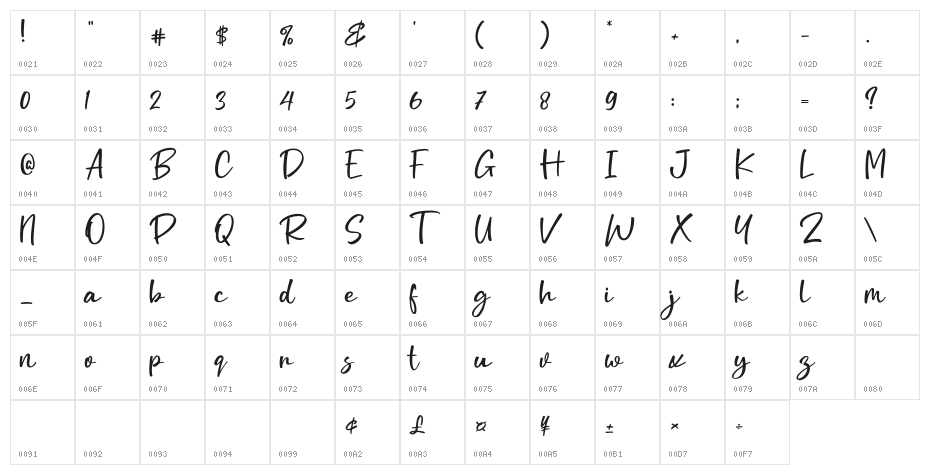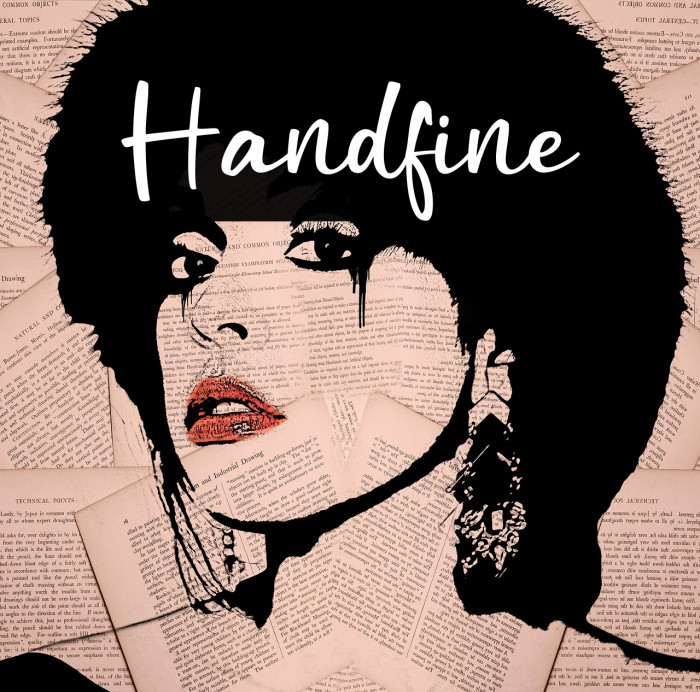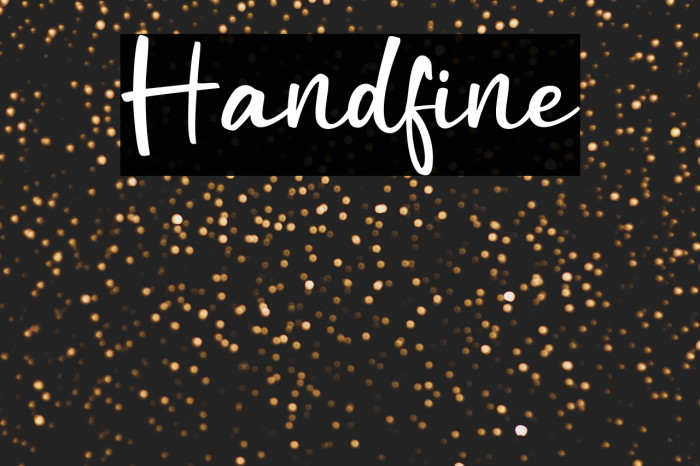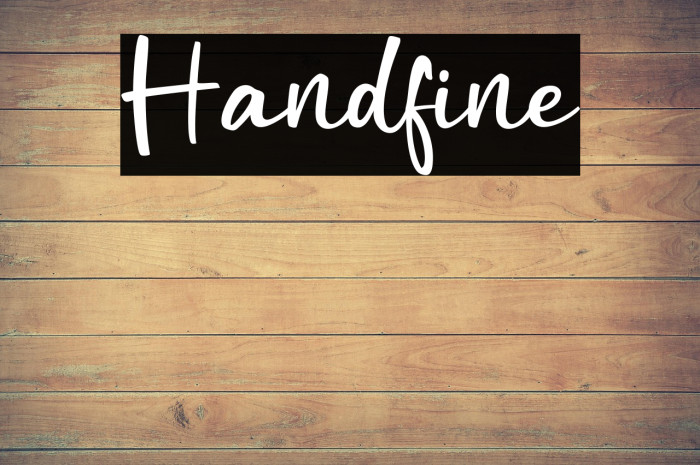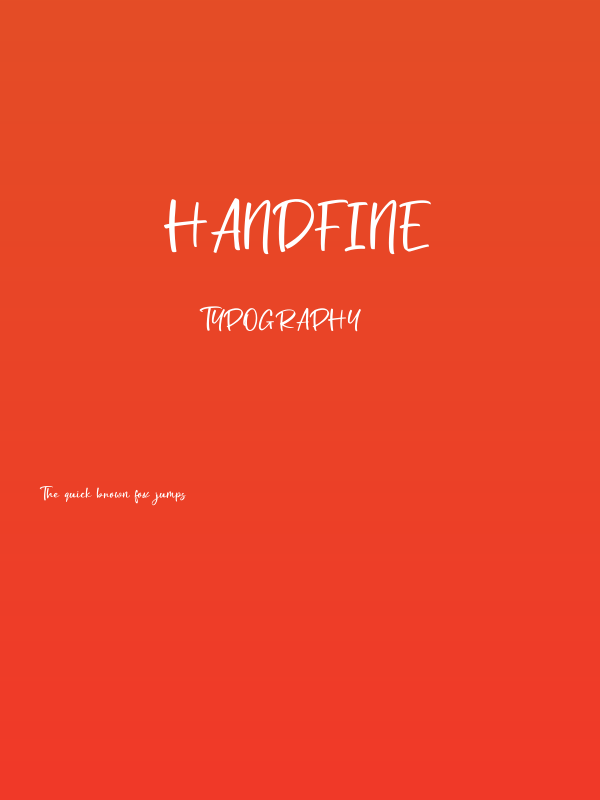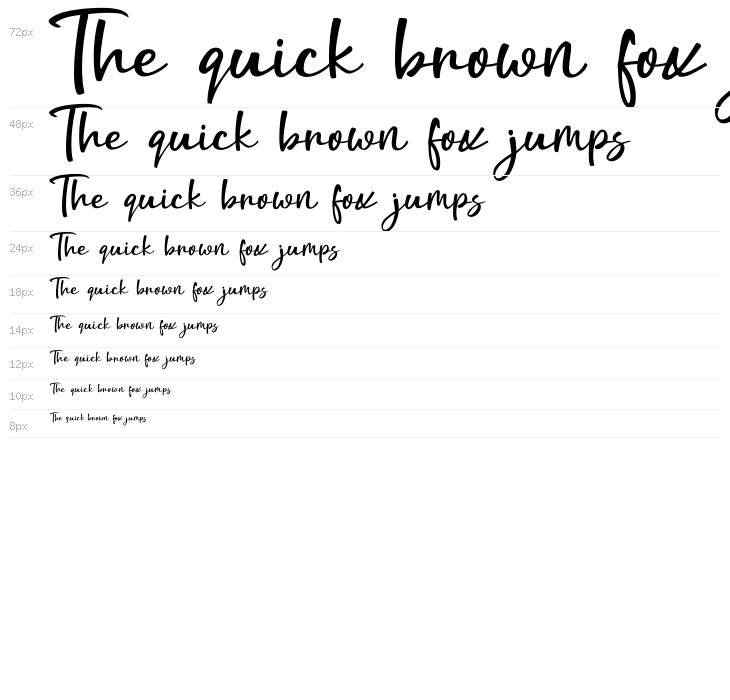
Handfine Font
Handfine Description
This font features a lively and flowing handwritten style, characterized by its smooth curves and elegant strokes. The uppercase letters are bold and confident, while the lowercase letters maintain a graceful and connected appearance, enhancing the script-like quality. Numbers and special characters are designed to complement the overall aesthetic, ensuring a cohesive look. The font's playful yet sophisticated nature makes it versatile for various creative applications.
| Use Case | Logos, Invitations, Greeting Cards |
| Proposed Projects | Ideal for wedding invitations, greeting cards, logos, and branding materials that require a personal touch. |